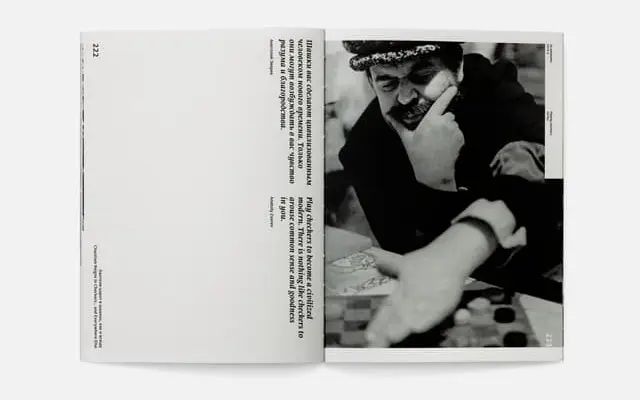
Brioni Sans
A humanist sans-serif from Typotheque offered in four weights with matching italics, designed as a companion to the Brioni serif family.
Four weights from Light to Bold, each with a corresponding italic, give Brioni Sans a compact but practical range for text-setting. Its humanist construction keeps it warm and readable at body sizes, consistent with the character of the broader Brioni family. Suited to editorial and corporate contexts where a neutral but approachable sans is needed alongside a serif counterpart.
Brioni Sans is a humanist sans-serif with a warm, legible character, positioned as the sans companion to Typotheque's Brioni serif family, suggesting organic, calligraphic roots in its construction.